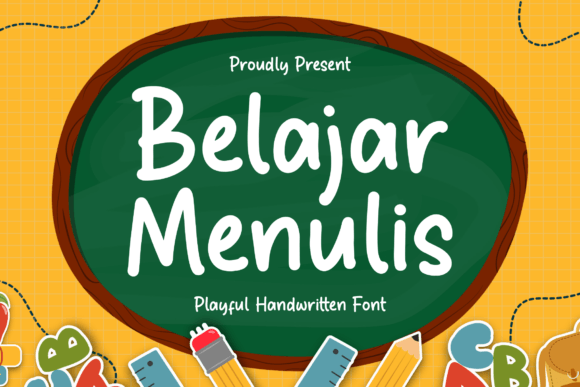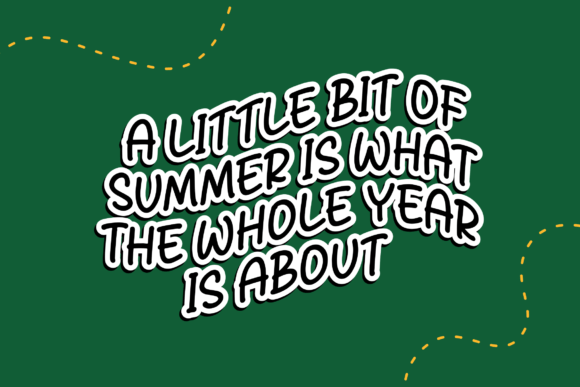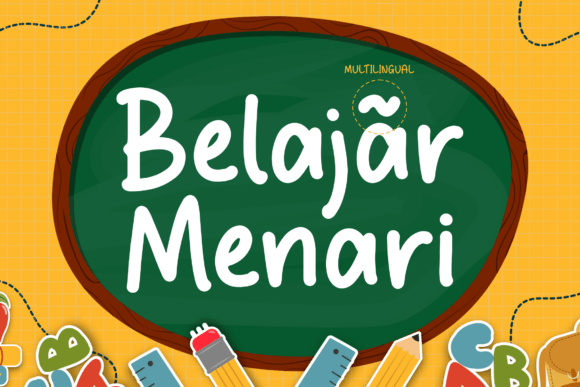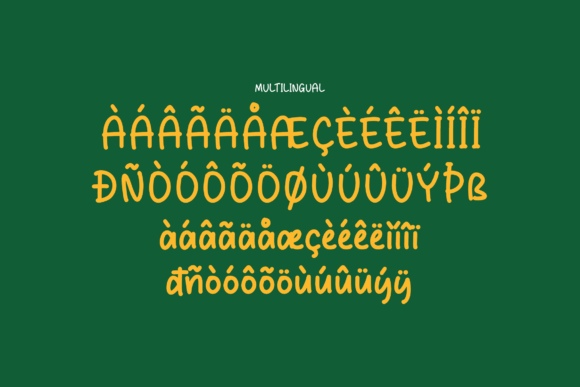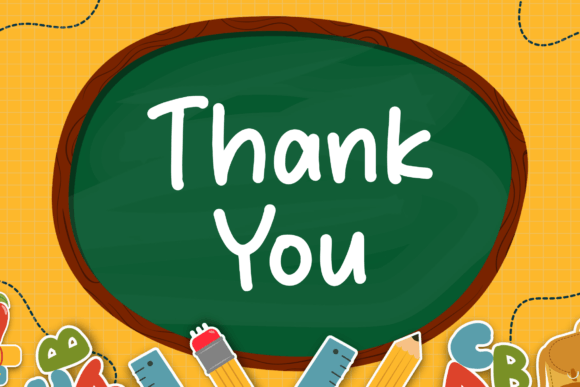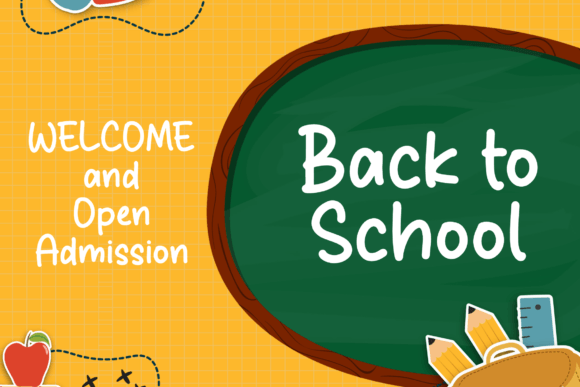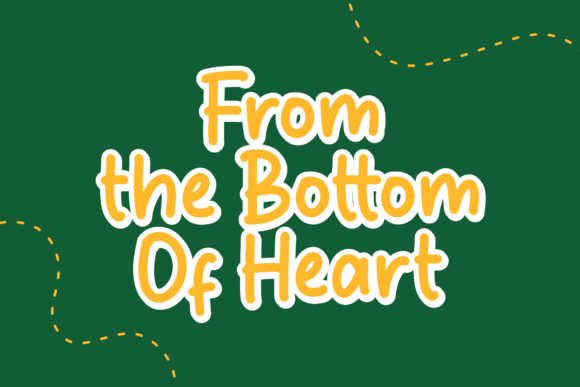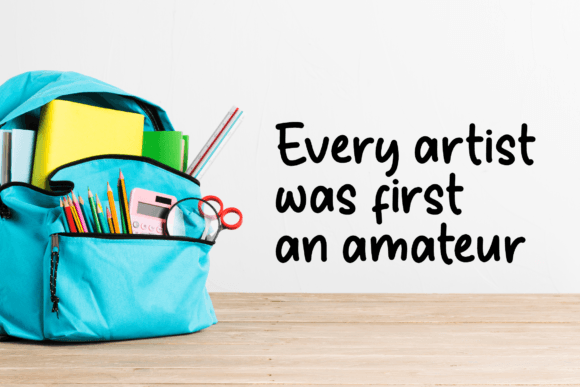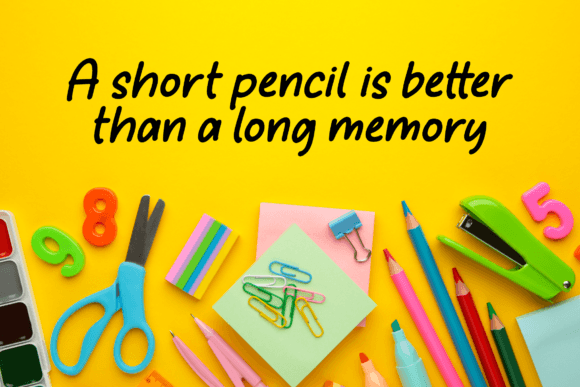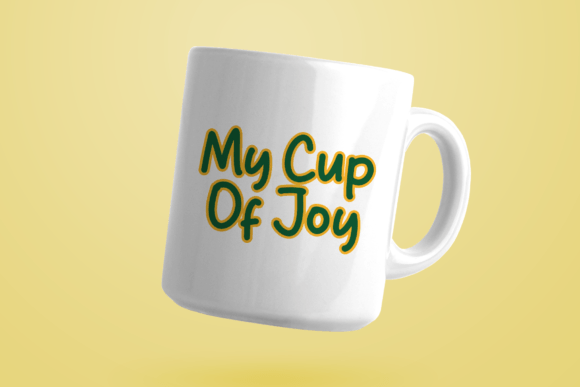
Belajar Menulis Font
About Belajar Menulis Font
Introducing “Belajar Menulis,” a playful handwritten font designed to bring a delightful and charming touch to a wide range of creative projects. This versatile font is suitable for various applications, including logos, branding projects, homeware designs, product packaging, quotes, posters, shopping bags, T-shirts, book covers, name cards, invitation cards, greeting cards, labels, photography, watermark, special events, and more. “Belajar Menulis” is the perfect choice when you need a beautiful script taste to enhance all your lovely projects.
The playful and handwritten style of “Belajar Menulis” adds a sense of joy and personality to your text. Its adaptability allows it to seamlessly fit into different design contexts, making it a go-to font for various creative endeavors.
Imagine “Belajar Menulis” infusing a playful touch into your product packaging, where its script font creates a fun and distinctive vibe. Picture it on posters or T-shirts, making a bold statement with its unique and eye-catching style. Envision it becoming the signature font for your branding, giving your logo and promotional materials a charming and delightful aesthetic.
“Belajar Menulis” is not just a font; it’s a creative tool that brings a playful and beautiful script taste to your projects. Its versatility makes it suitable for a wide range of applications, allowing you to infuse your designs with a touch of charm.